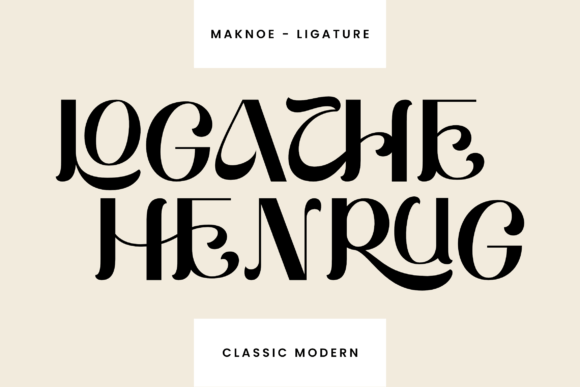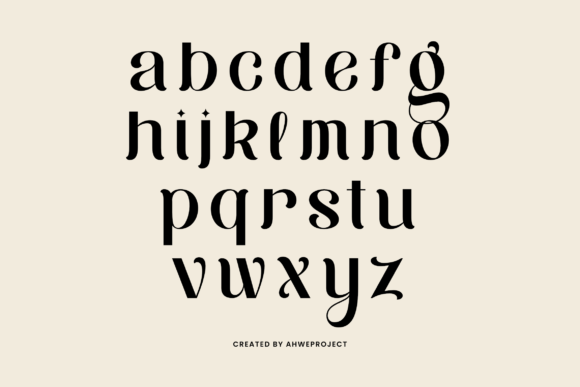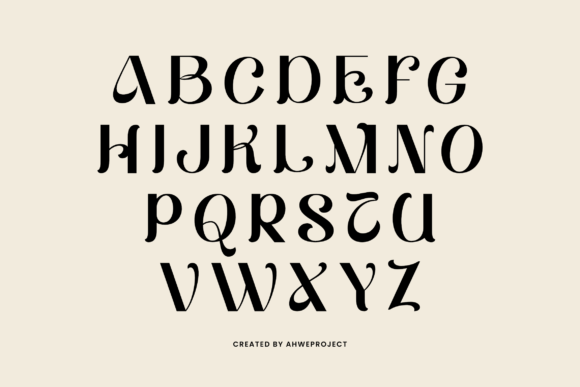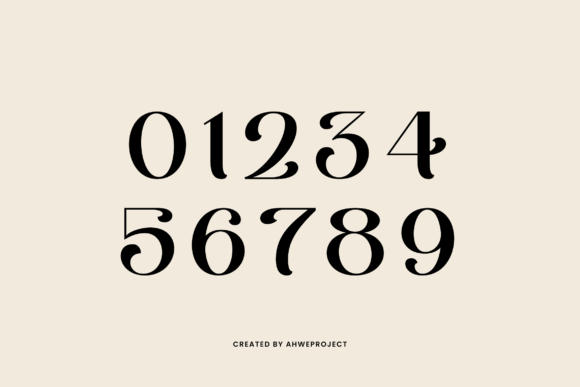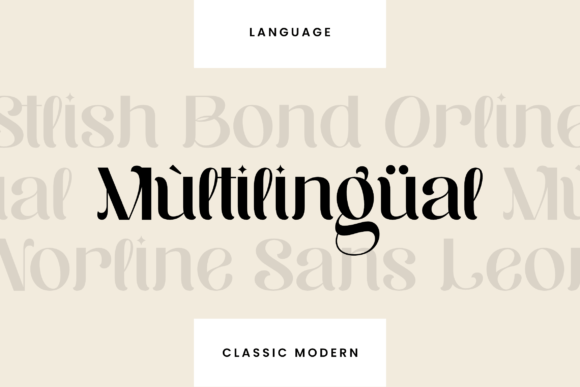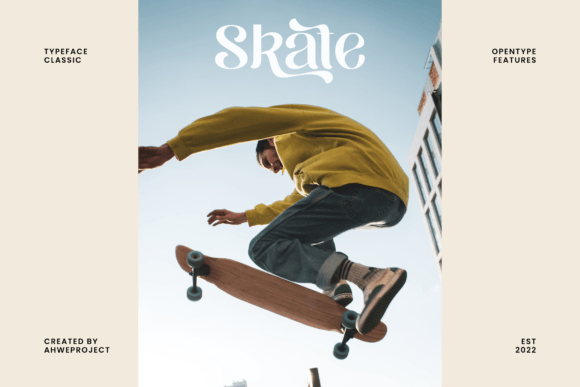
Introduction to Maknoe Font
Maknoe is a classic serif typeface.
This beautiful serif font is suitable for logo, headline, cover book, magazine, and many more Maknoe font is PUA encoded, which means you can access all of the glyphs and swashes with ease.
Key Features of Maknoe Font
Why Choose Maknoe Font?